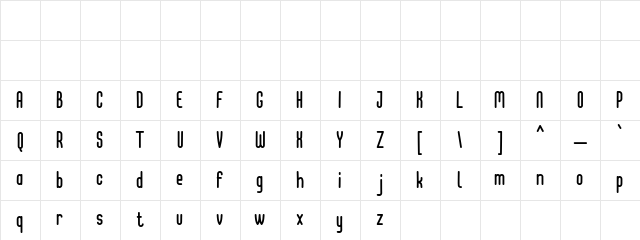
Honeydew Pineapple Regular
Foundry: HannaBie Creative
Designer: Lady Hanna
Complete Honeydew Pineapple Regular glyph index. Displaying only characters natively supported by Honeydew Pineapple Regular font.
Design Context for Honeydew Pineapple
Honeydew Pineapple is a composed and adaptable typeface that performs quietly and consistently across a wide range of design contexts.